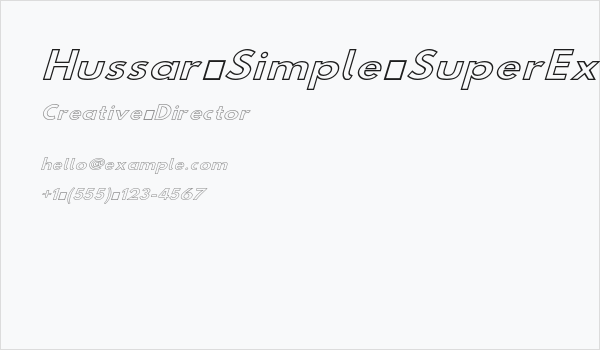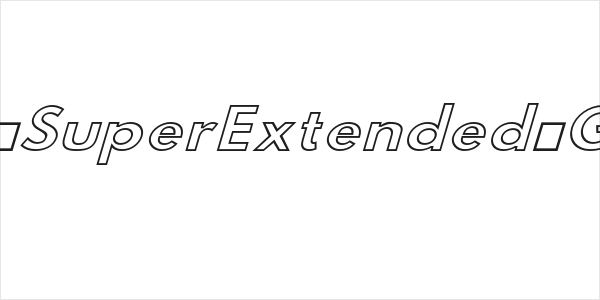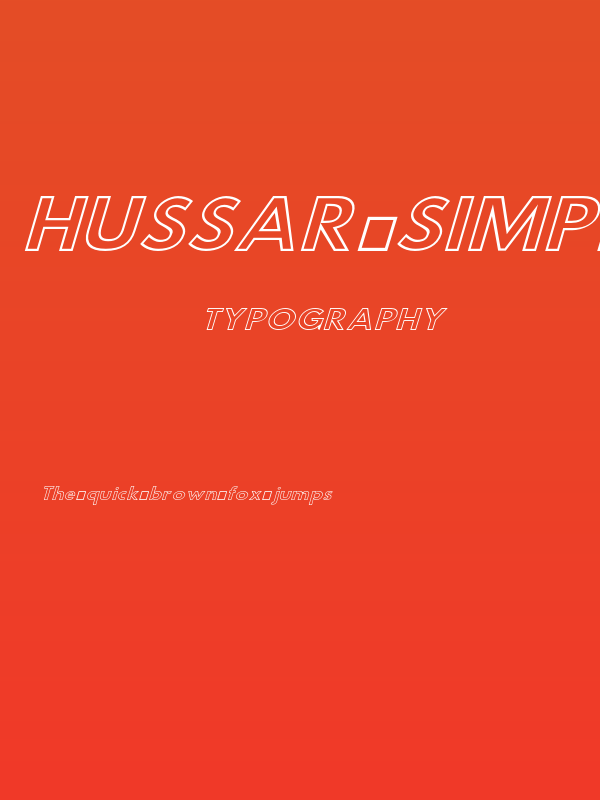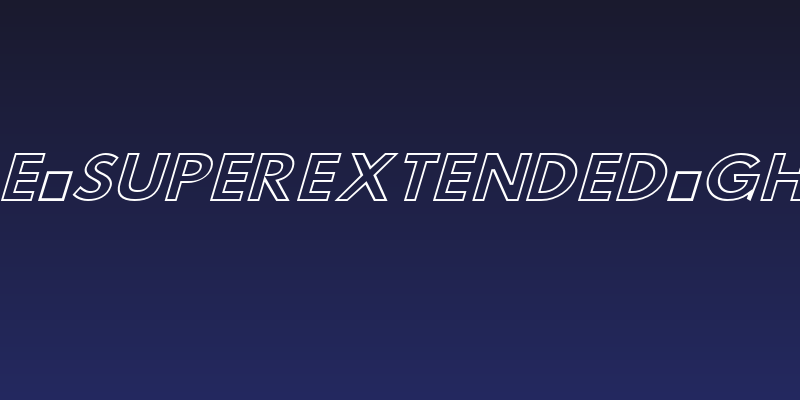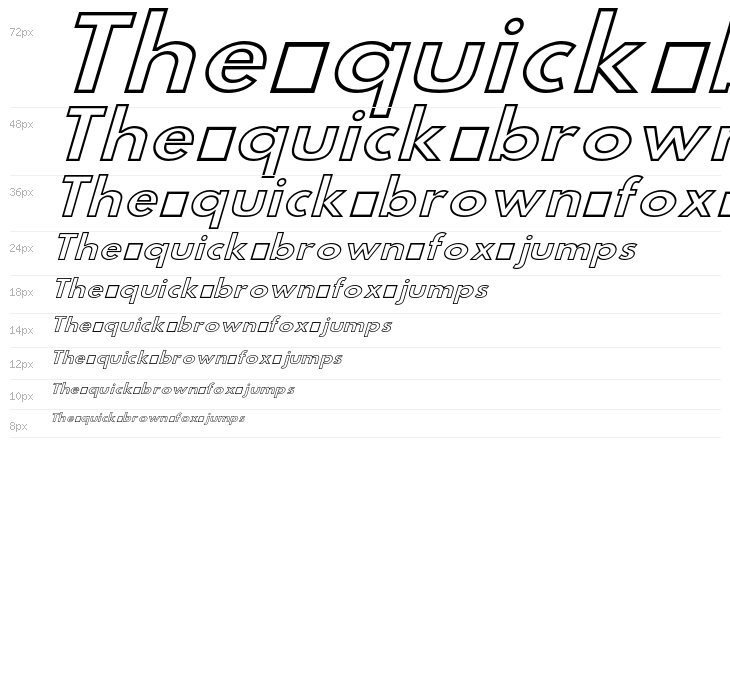
Hussar Simple SuperExtended Ghost Oblique3 Font
Hussar Simple SuperExtended Ghost Oblique3 Description
This font features a modern, geometric design with a distinct oblique style, giving it a dynamic and forward-leaning appearance. The characters are outlined, creating a 'ghost' effect that adds a unique visual interest. The super-extended width provides a spacious feel, making it stand out in any design. Each letter is crafted with precision, maintaining a consistent stroke width throughout. The uppercase and lowercase letters are well-balanced, and the numerals are clear and legible. Special characters are included, enhancing its versatility for various design needs. This font is ideal for projects that require a bold statement while maintaining a sleek and contemporary look.
| Proposed Projects | Ideal for headlines, posters, branding, and any design requiring a bold, modern statement. |